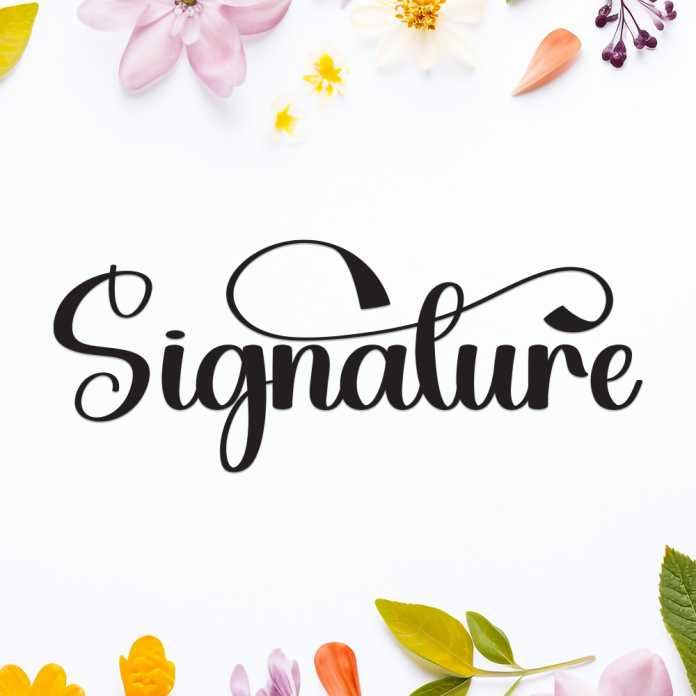
Signature is a sleek and stylish handwriting font that perfectly mimics the beauty of a personal signature. With its smooth curves and refined strokes, it brings sophistication and professionalism to any design.
Elegant, flowing script style
Perfect for branding, invitations, and personal logos
Natural handwritten look with a luxury feel
Complete with uppercase & lowercase letters
Numbers and punctuation included
Add a touch of class and personality to your projects with Signature — because your words deserve elegance.